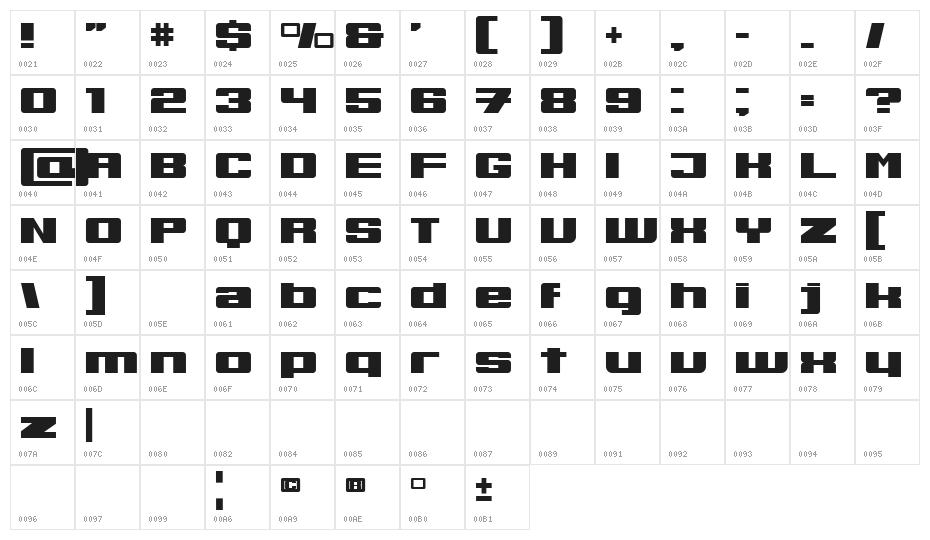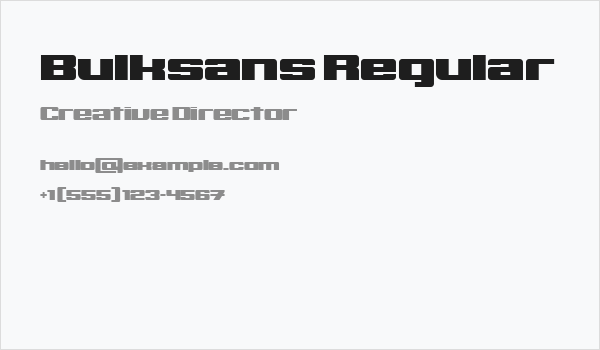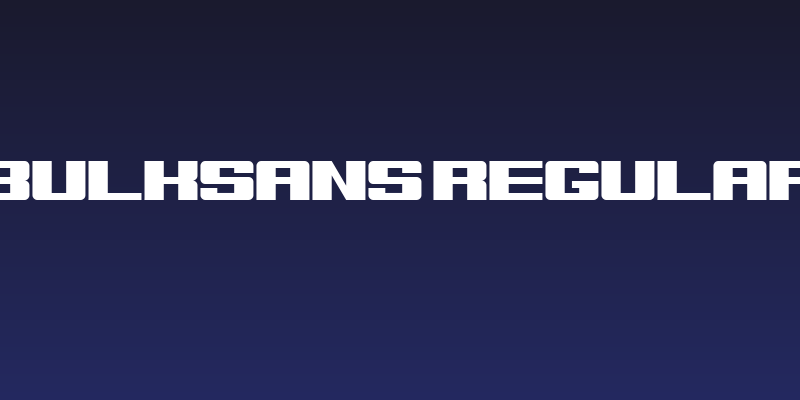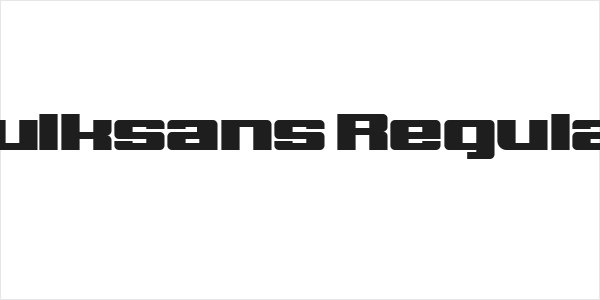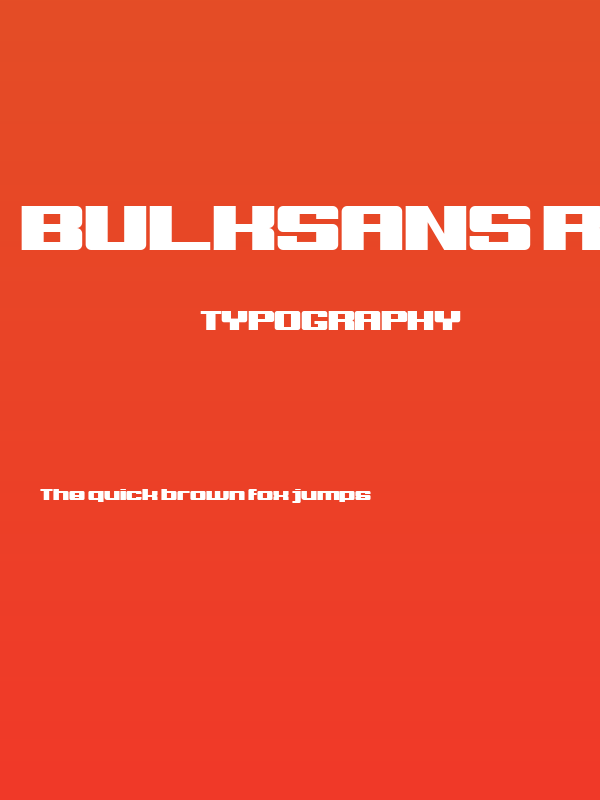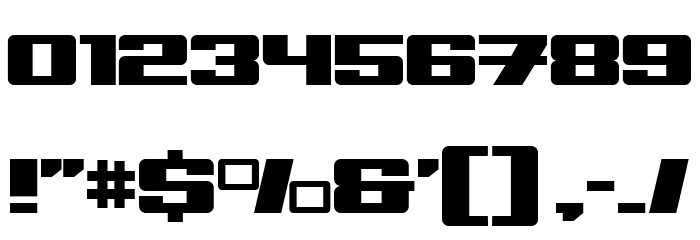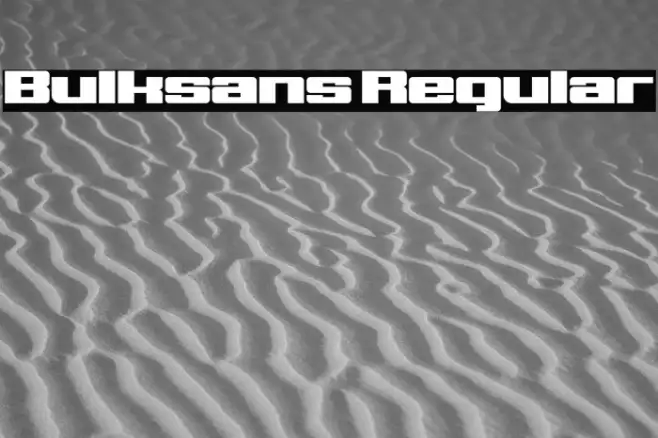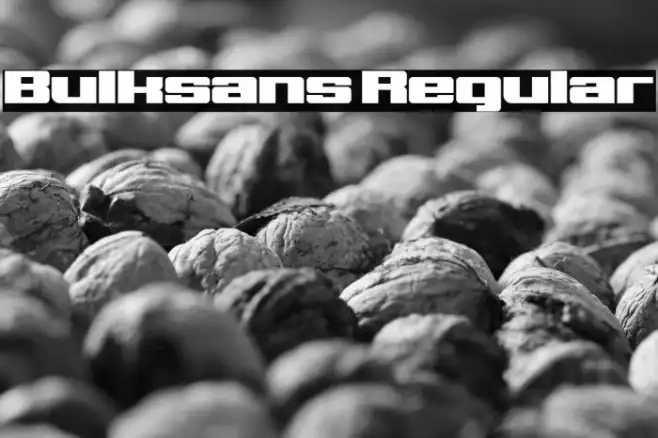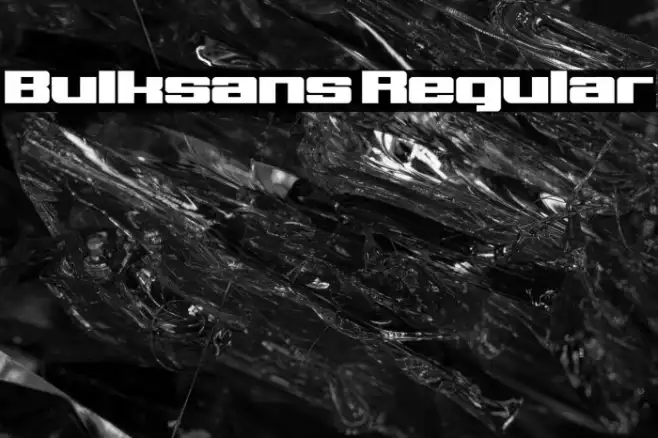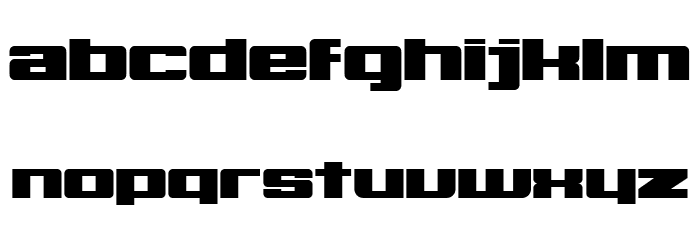
Bulksans Regular Font
Bulksans Regular Description
This font features a bold, geometric design with a strong presence. The characters are blocky and robust, with a uniform thickness throughout, giving it a modern and industrial feel. The uppercase and lowercase letters maintain a consistent style, with sharp angles and clean lines. The numerals and special characters follow the same design principles, ensuring a cohesive look across all elements. The font's boldness makes it stand out, while its simplicity ensures readability.